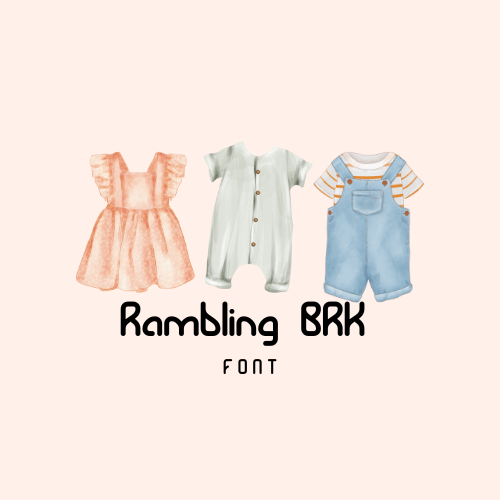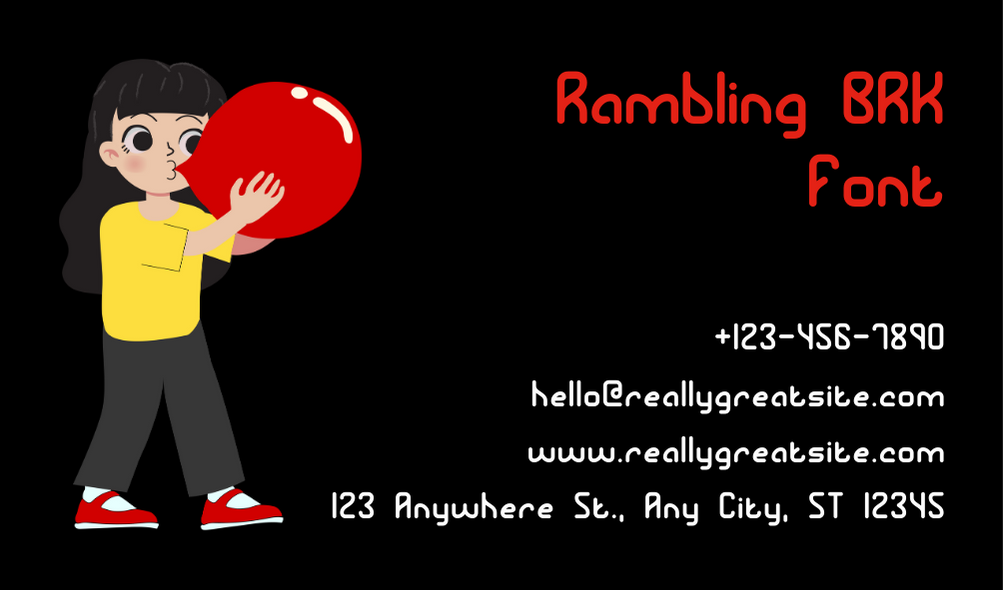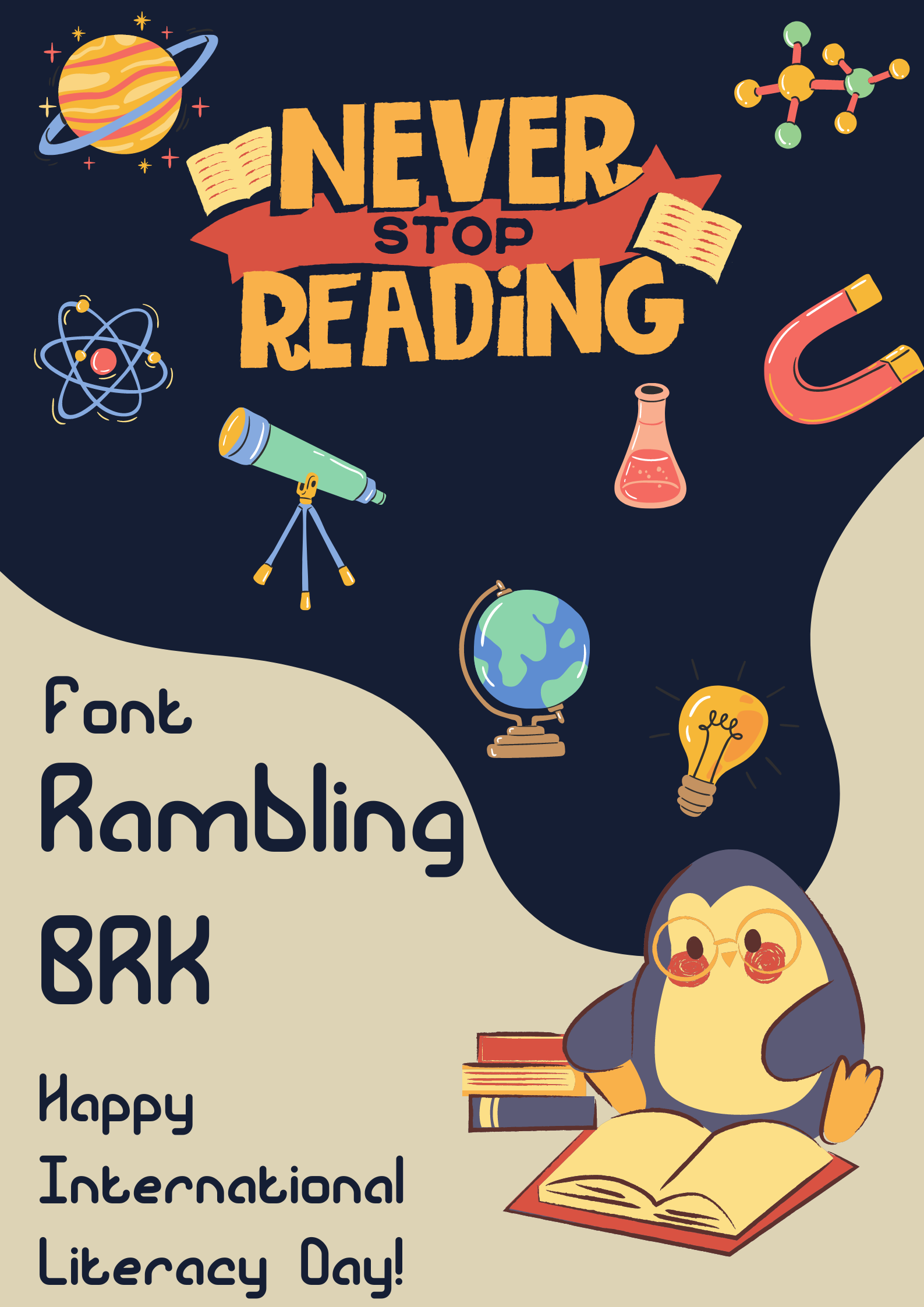
Rambling BRK is a fun and playful font that is perfect for a variety of designs. It was designed by ?NIGMA FONTS - Brian Kent and is free to use for personal projects. The font subfamily is Normal.